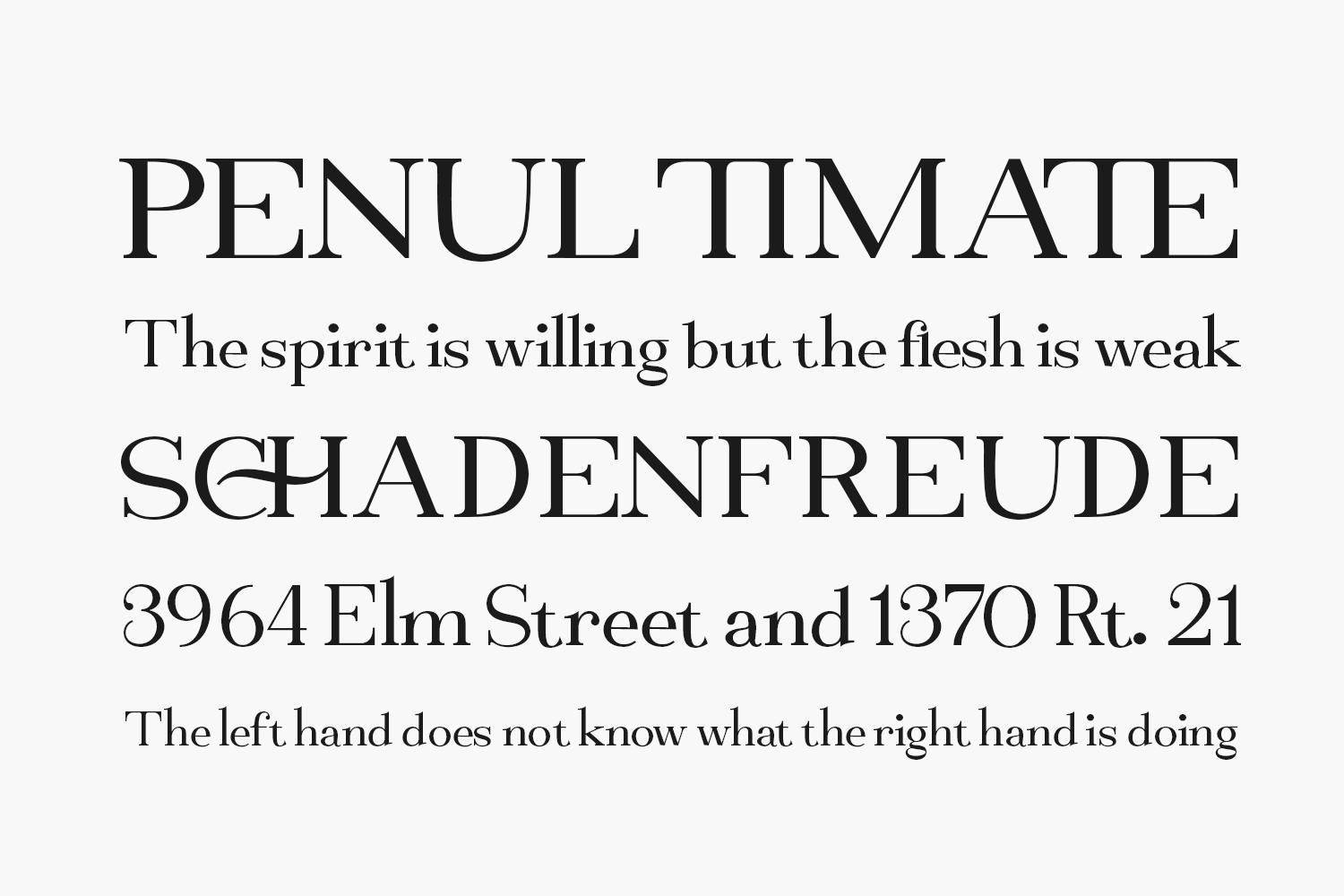
Introducing Bekinder Free Font Family, a contemporary and distinctive serif typeface designed for versatility. This customizable font is perfect for enhancing a range of creative concepts, including feminine logo designs, fashion and editorial headers, branding endeavors, clothing labels, packaging, magazine titles, advertisements, T-shirts, postcards, Valentine’s themes, posters, invitations, weddings, social media posts, magazines, book covers, and beyond. Elevate your projects with the modern charm of Bekinder. Bekinder Free Font Family is free for personal use only. Please purchase the full version for commercial use.